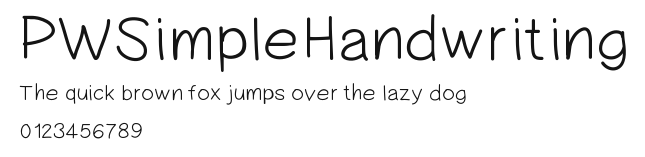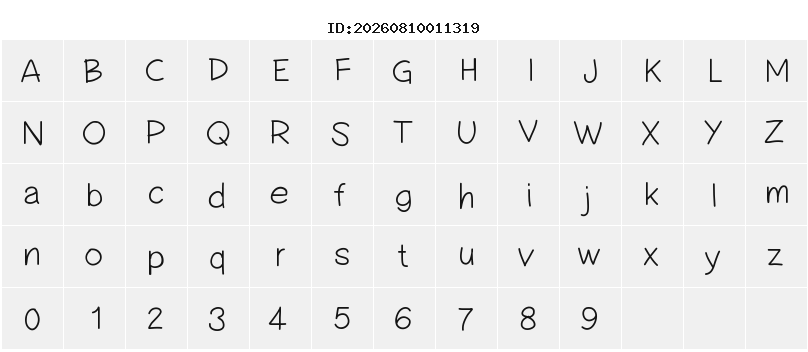
About PWSimpleHandwriting.ttf
PWSimpleHandwriting.ttf is a modern, elegant sans-serif font designed for ultimate readability and visual harmony. Perfect for branding, headlines, web design, and print materials.